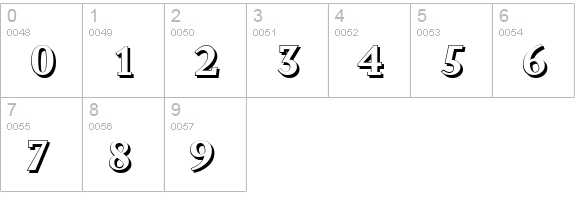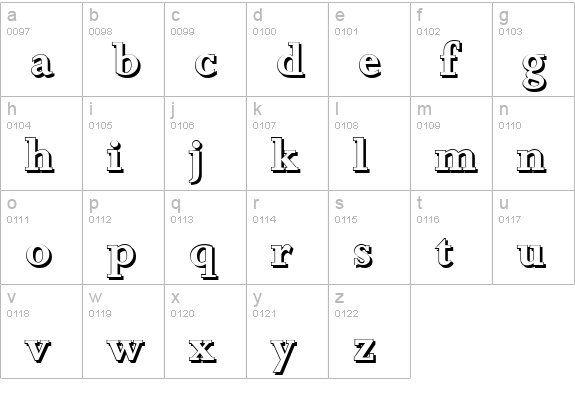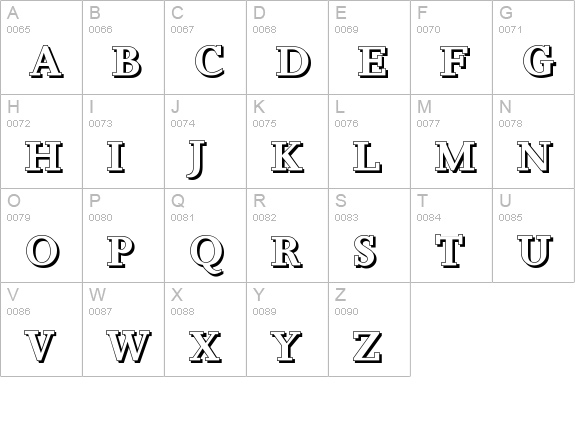
JessicaShadow-Bold Font Details
JessicaShadow-Bold is a strong, high-contrast variant in the JessicaShadow typeface family \xE2\x80\x94 well suited to headlines, attention-grabbing titles, and strong calls-to-action.
The JessicaShadow-Bold font is a striking and bold typeface that exudes elegance and sophistication. Its sleek lines and sharp edges make it perfect for creating eye-catching designs and captivating headlines. This modern and stylish font is sure to make a statement and leave a lasting impression. Best of all, the JessicaShadow-Bold font is available for free download at FontsMarket.com. You can easily add this versatile font to your collection and use it in a wide variety of projects, from branding and advertising to invitations and social media graphics. Don't miss out on the opportunity to enhance your designs with the timeless beauty of the JessicaShadow-Bold font. Download it now and let your creativity shine!